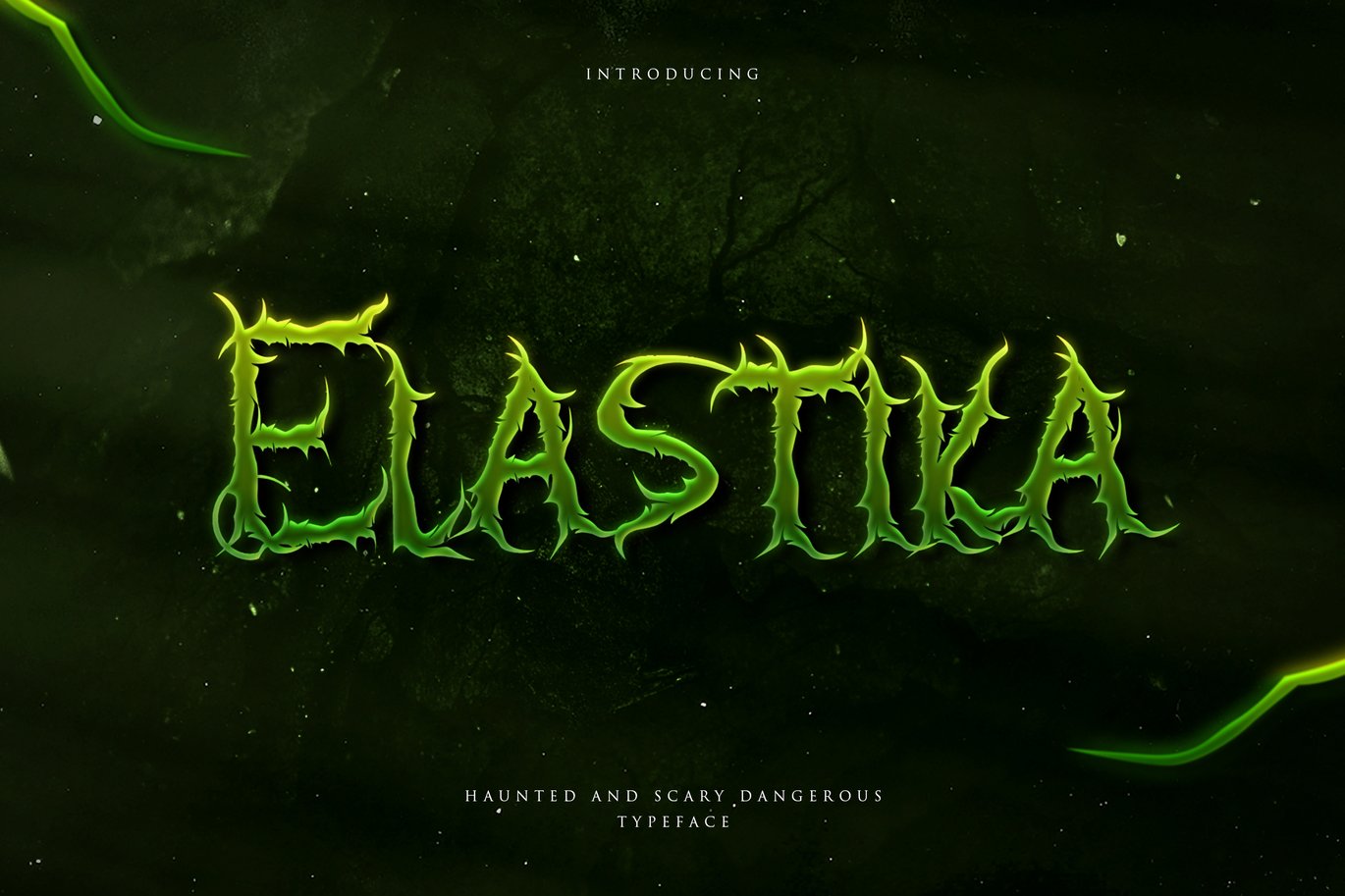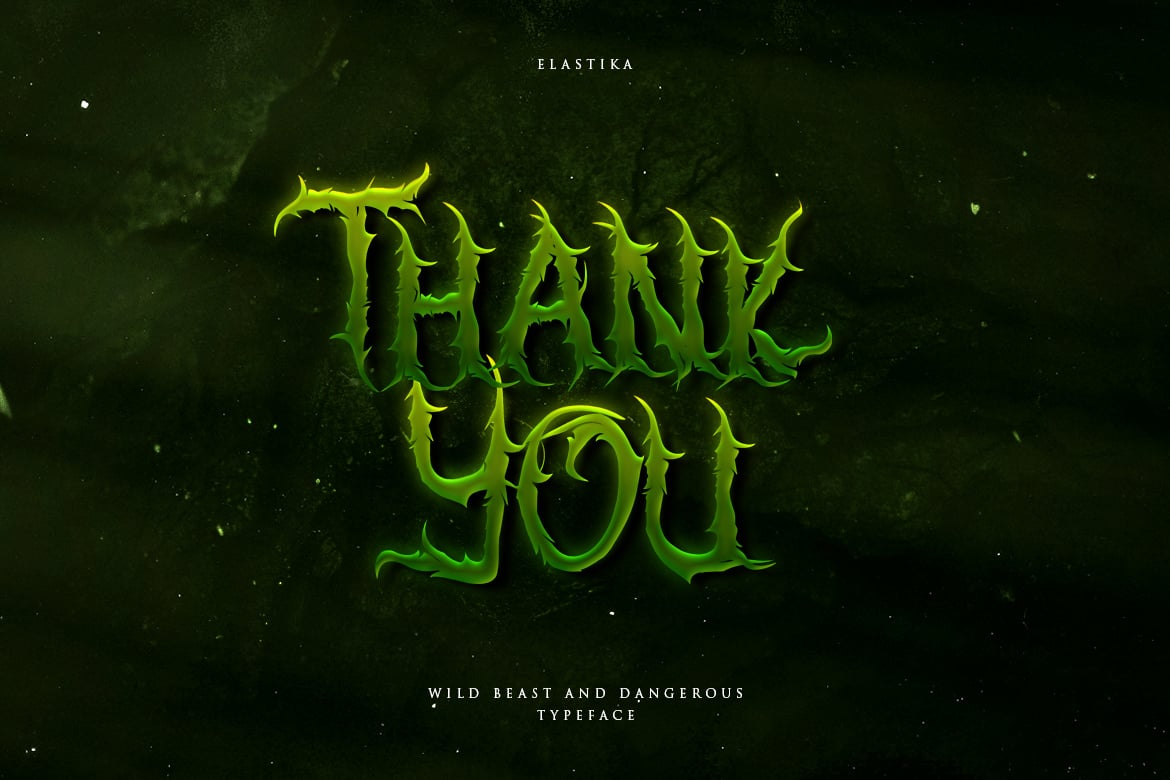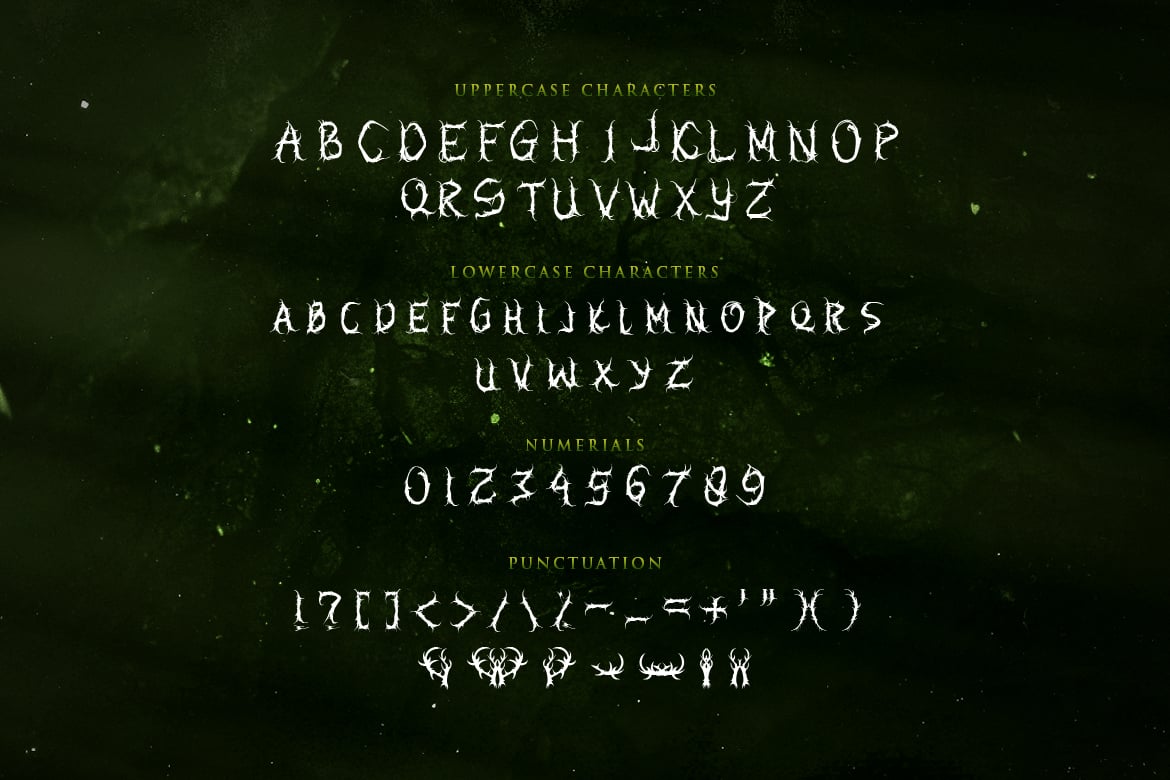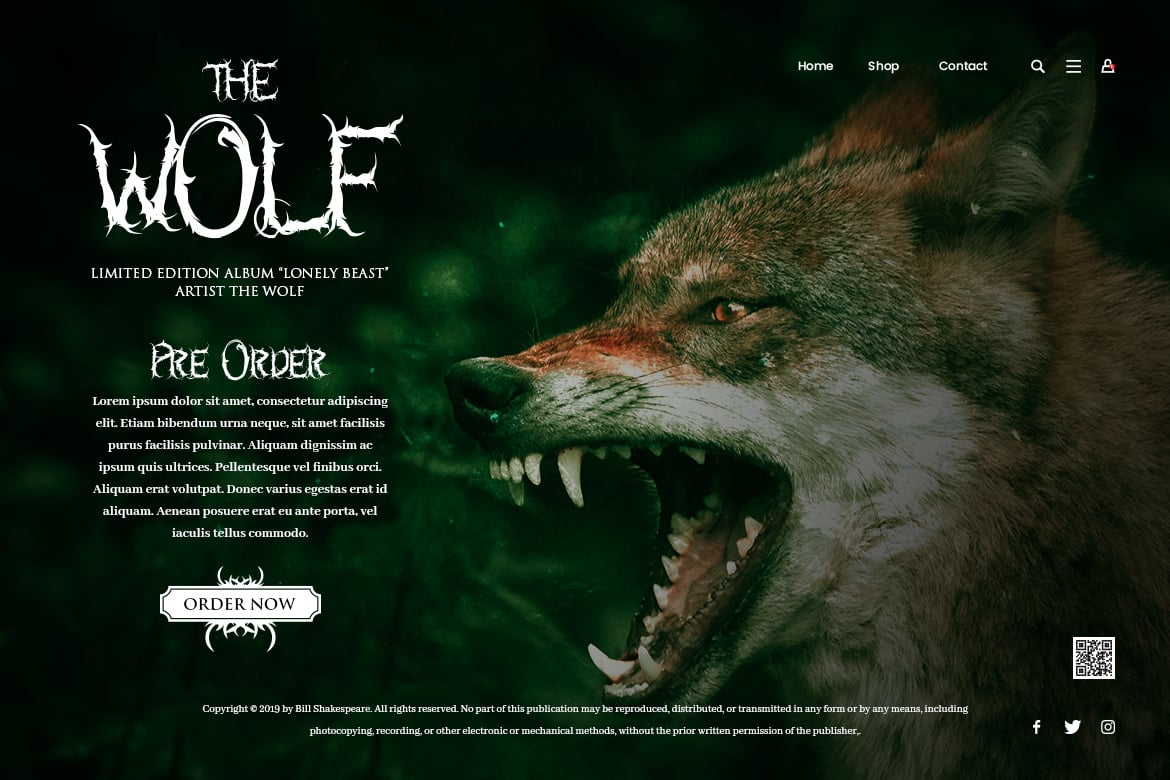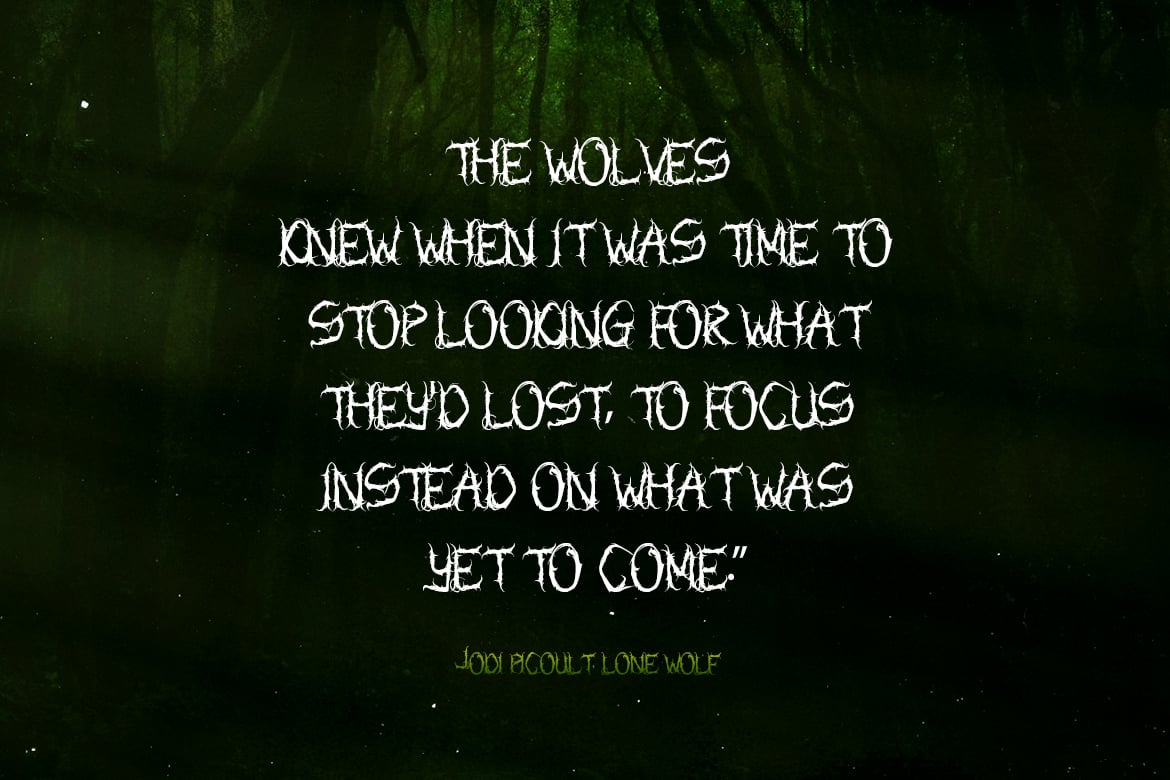
Elastika – Haunted Hand Drawing Display Typeface
Introducing Elastika font. Are you looking for a Haunted hand drawing display font that has a scary halloween feeling? We can help! Try to download our Elastika font. The font is suitable to use for many occasion such as halloween, movie title, book title, event, clothing, music and many more π